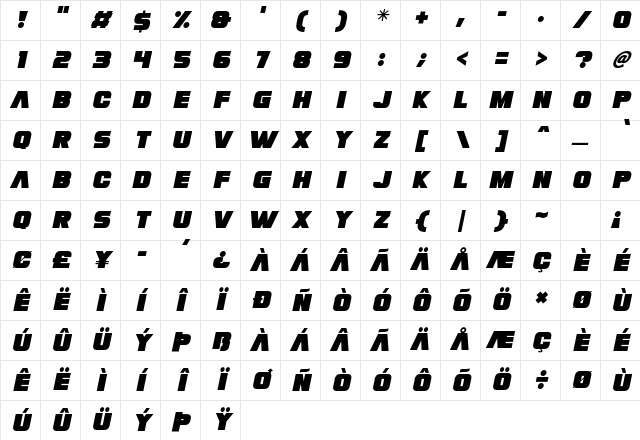
Megapunch Italic Free Font
Megapunch Italic
Design Context for Megapunch
Megapunch is a composed and adaptable typeface that performs quietly and consistently across a wide range of design contexts. The slanted form adds forward momentum and visual energy.
Pro Tip: Use Megapunch for emphasis, pull quotes, and subheadings where its slanted energy can add rhythm to the layout.